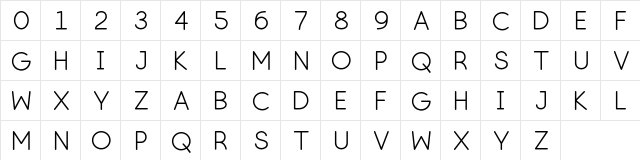
Luna Regular
| Designer | Muhammad Husni Haikal |
Design Context for Luna Typeface
Luna is a composed and adaptable typeface that performs quietly and consistently across a wide range of design contexts.